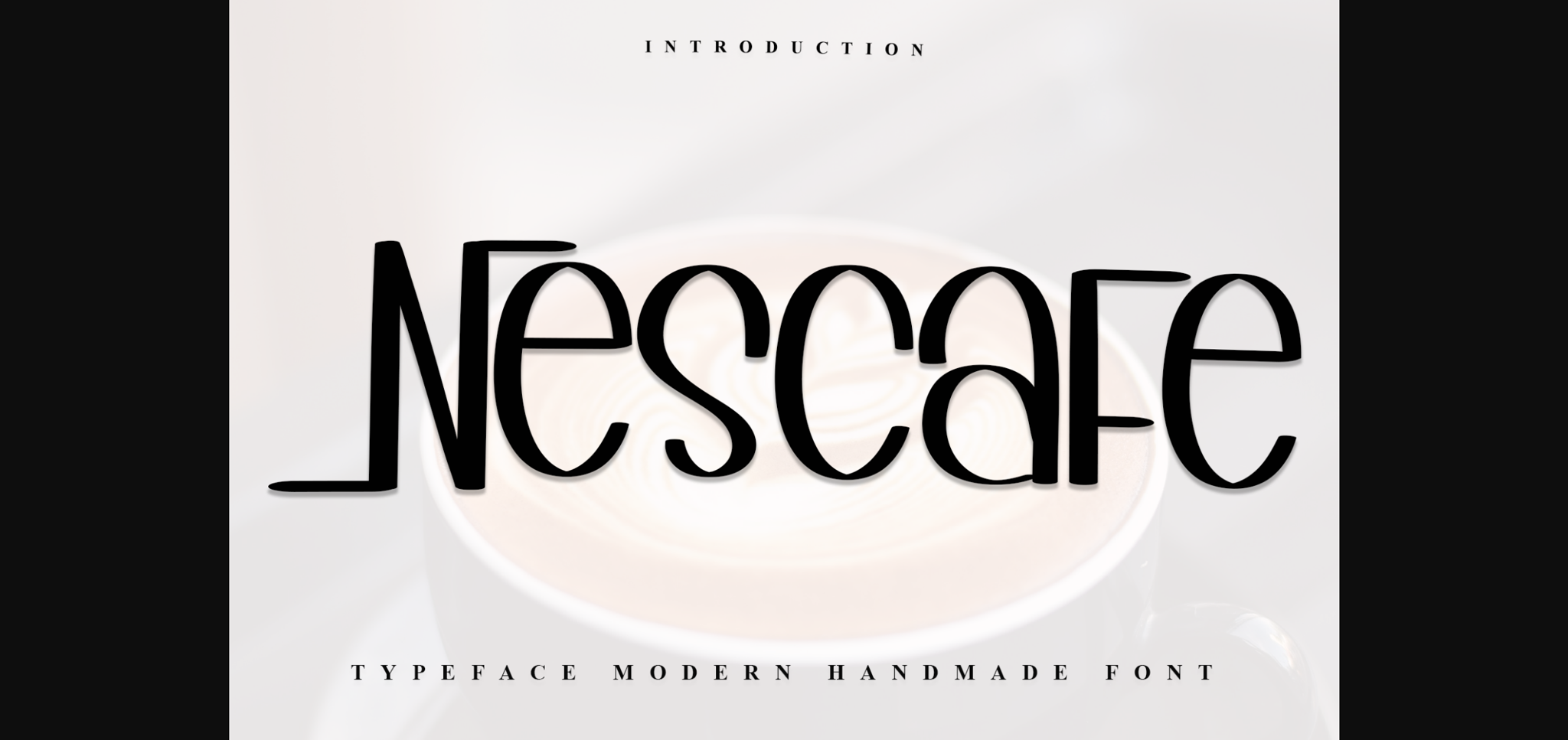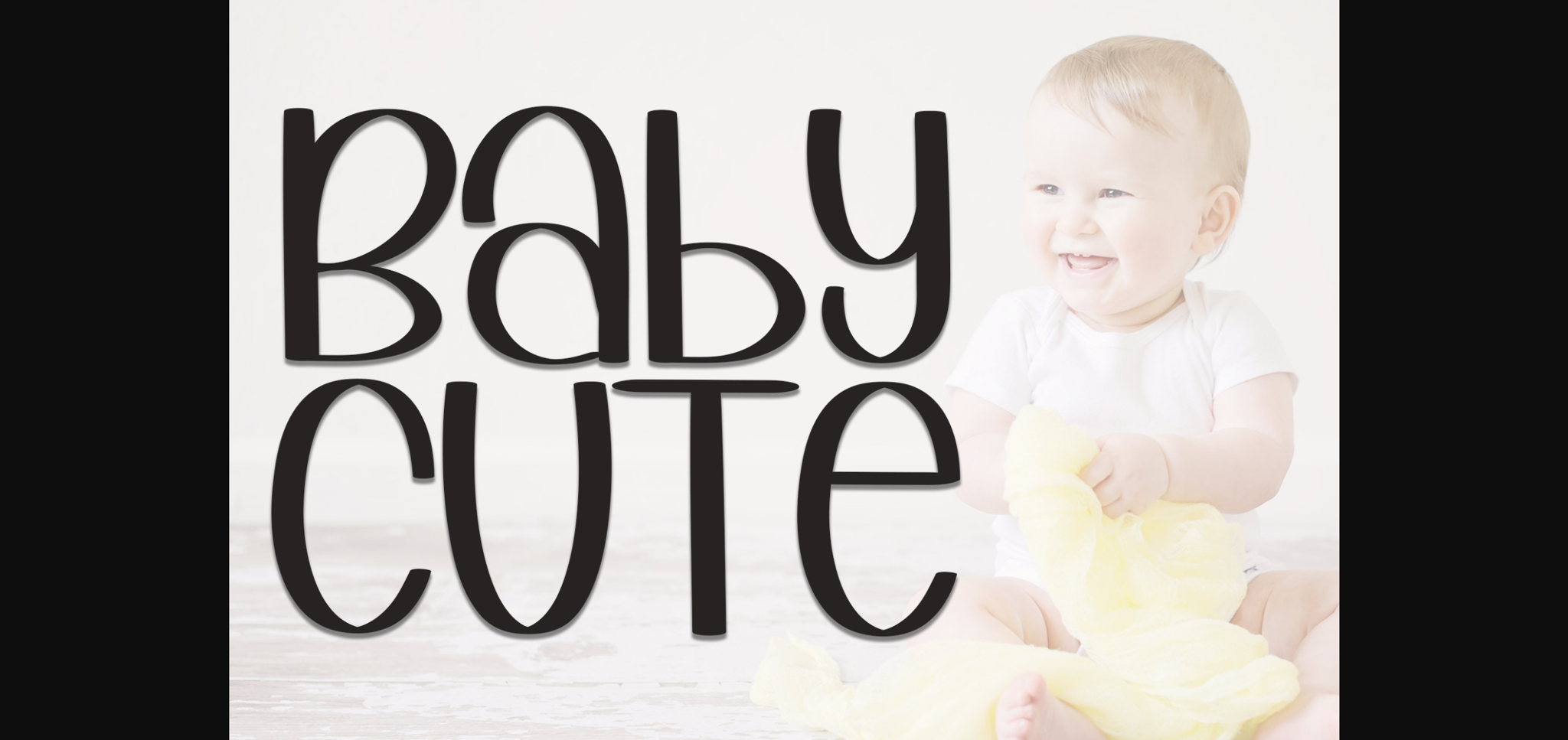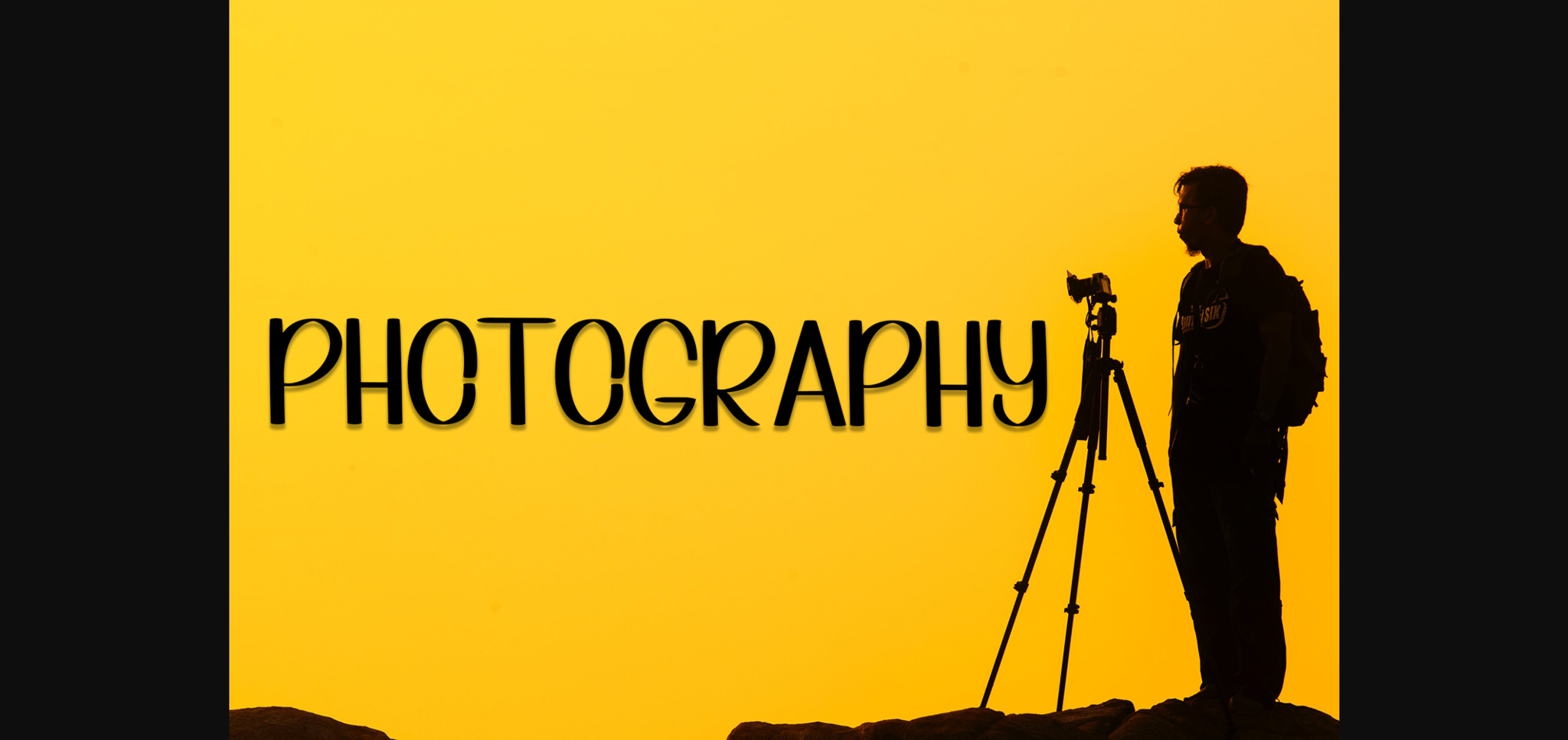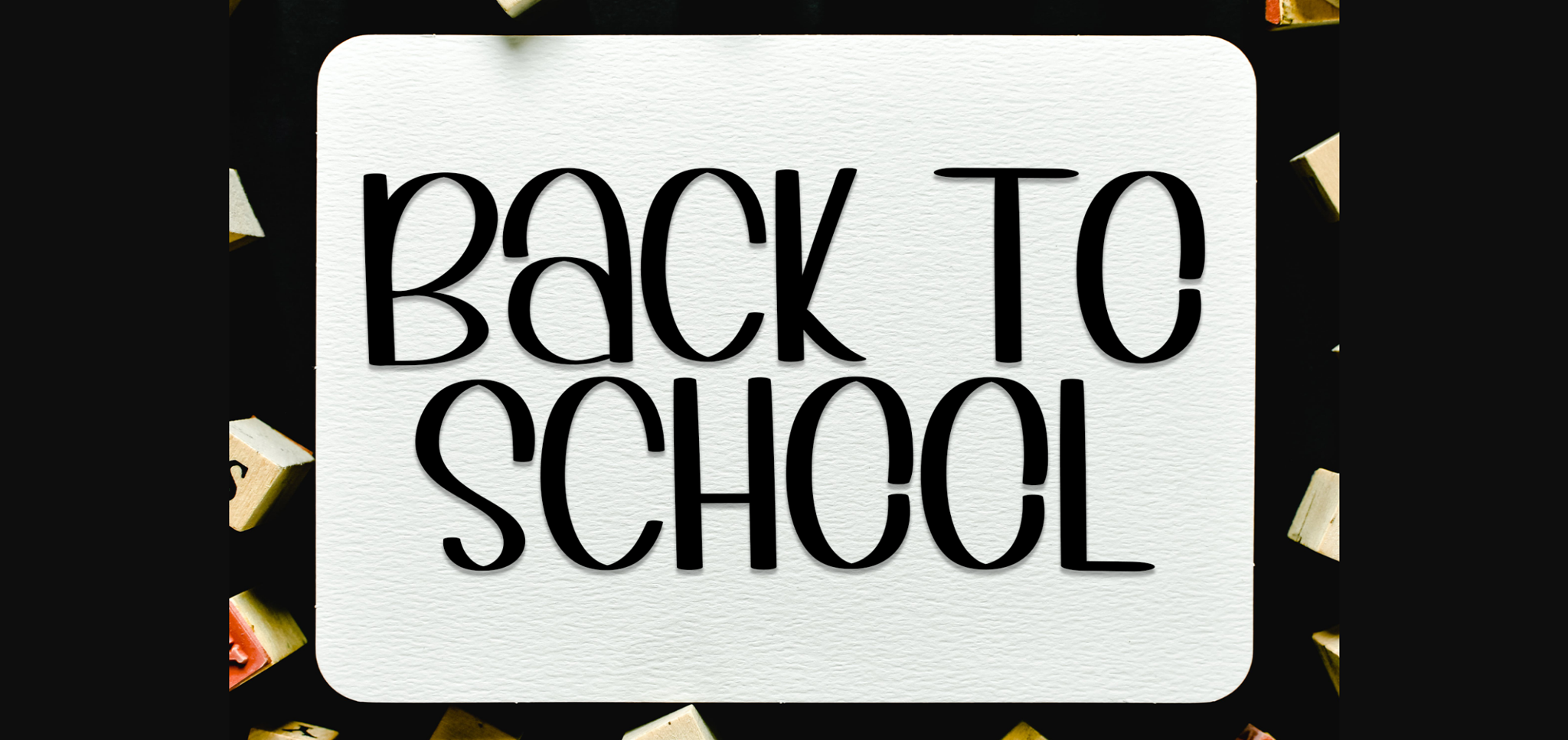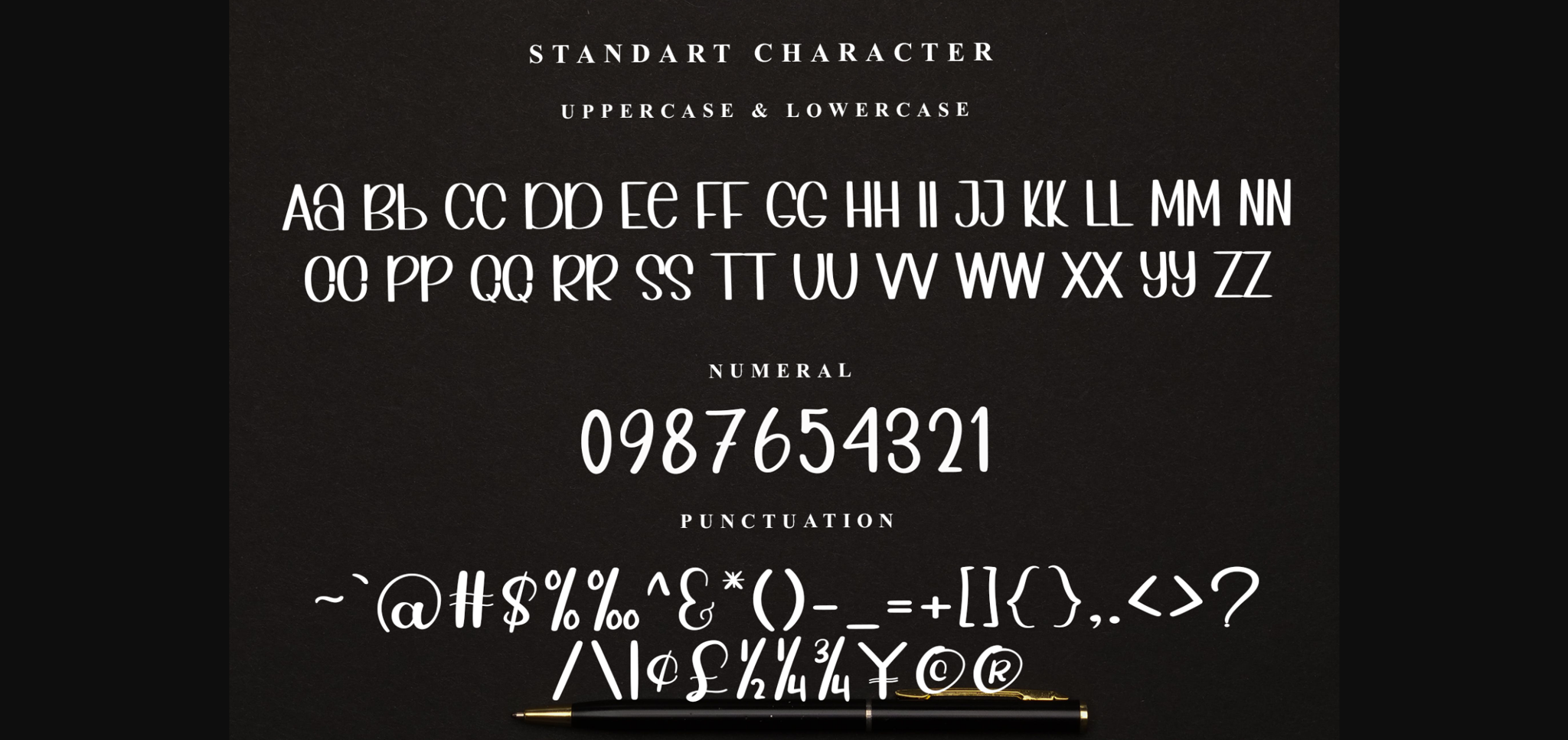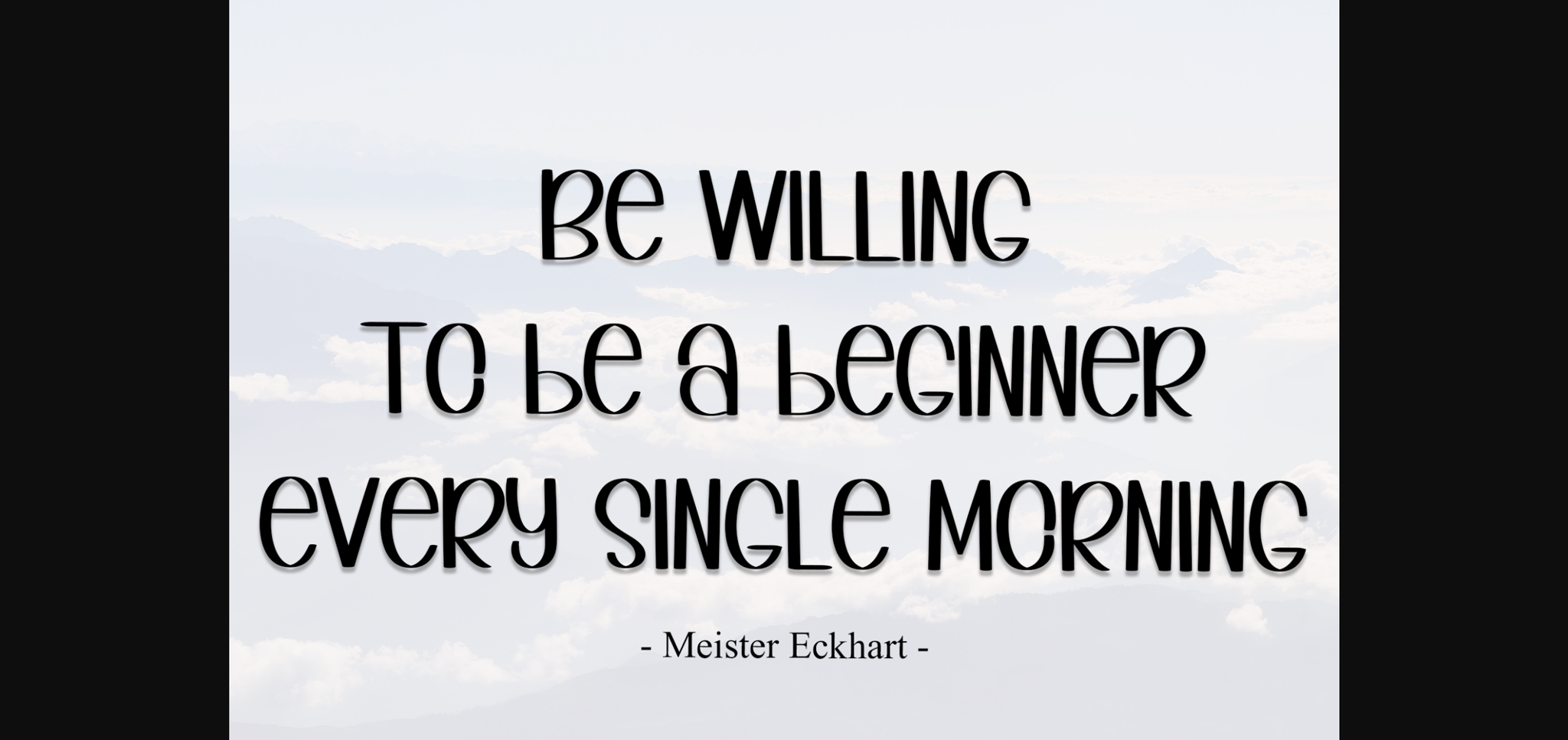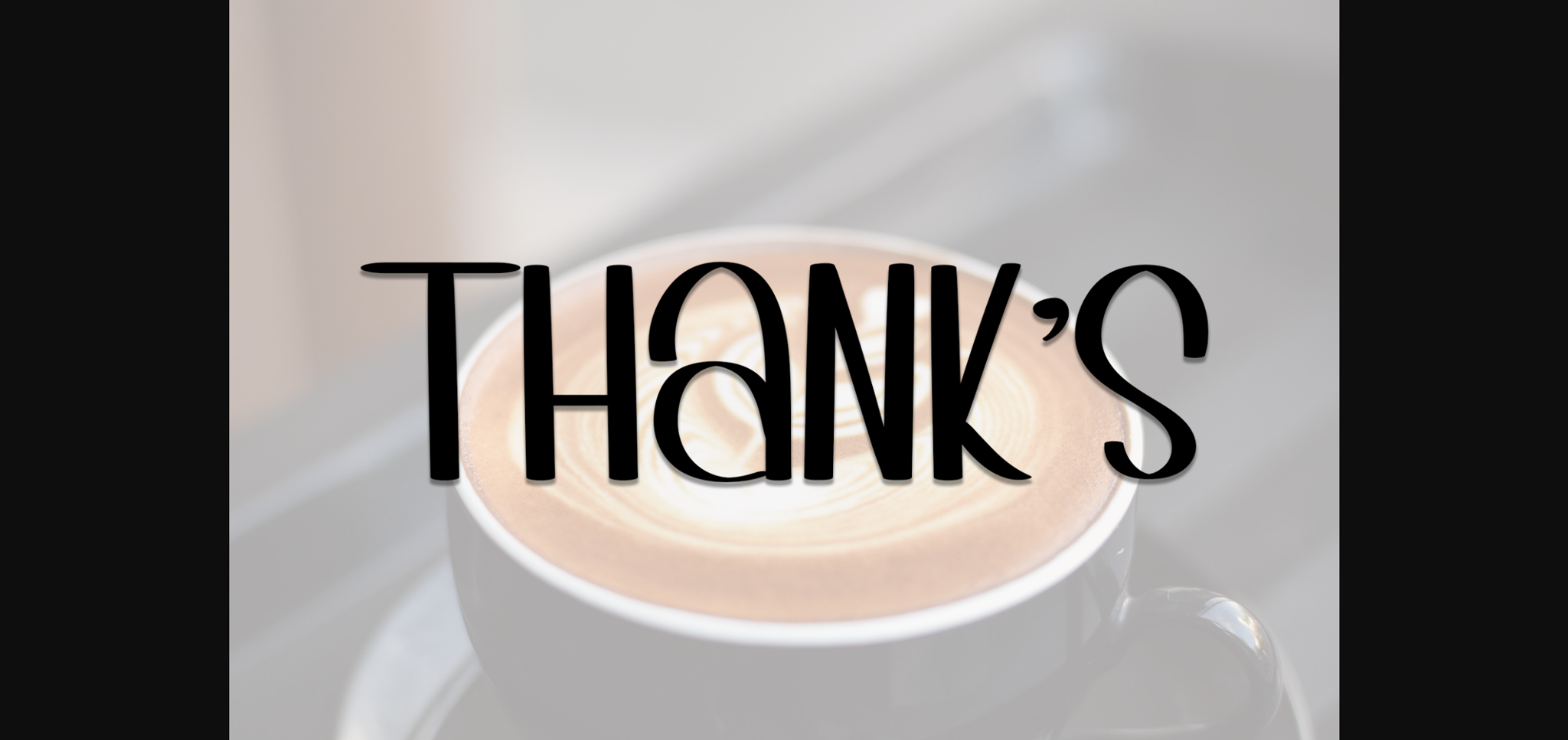
What Is Nescafe Font?
Nescafe Font is a charming sans-serif typeface designed to bring freshness and effortless style to any project. Each letter is carefully crafted with smooth, organic lines and a casual elegance that feels both approachable and modern. Whether you’re creating something sophisticated or laid-back, Nescafe offers a versatile look that adapts to your vision.
Its distinctive style blends contemporary design with natural warmth, making it a perfect choice for designers who value clean, authentic typography.
Nescafe is highly versatile and suits a wide range of applications. For example, it’s perfect for branding projects and logos. The relaxed yet polished letterforms create a professional, memorable look that feels inviting.
Invitations and event materials stand out with Nescafe’s casual elegance. Whether you’re designing wedding stationery, party announcements, or thank-you cards, this font sets a welcoming tone.
Social media graphics and blog headers instantly look fresh and cohesive with Nescafe’s clean lines. Your digital content will feel modern and engaging.
Product packaging and labels benefit from Nescafe’s approachable character. From artisan goods to lifestyle products, this font helps create a genuine connection with customers.
Even presentations, educational materials, and marketing collateral feel more polished and friendly when you use Nescafe.
Why Should You Choose Nescafe Font?
One of Nescafe’s strongest qualities is its readability. Despite its stylish curves and organic shapes, every letter remains clear and legible across sizes. From small captions to bold headlines, your text will always look professional and easy to read.
It pairs beautifully with script or serif fonts, giving you endless flexibility to build balanced, modern layouts.
Designers love that Nescafe looks clean and polished out of the box, saving time while ensuring every project feels thoughtfully crafted.
Nescafe Font adds a touch of warmth, clarity, and friendliness to any project. Its fluid strokes and natural shapes create a sense of ease that helps your work feel welcoming and authentic.
Even minimalist layouts gain personality and style when you use Nescafe. Whether you’re designing a brand identity, a social post, or a product label, this font elevates your visuals effortlessly.
Using a premium sans-serif shows your commitment to thoughtful design. Clients and customers will appreciate this attention to detail, helping you build trust and stand apart in a crowded market.
Nescafe Font is more than just a clean sans-serif—it’s a versatile design asset that helps you communicate ideas with clarity, warmth, and style. From branding and invitations to packaging and digital content, this font adapts seamlessly to any project and leaves a lasting impression.